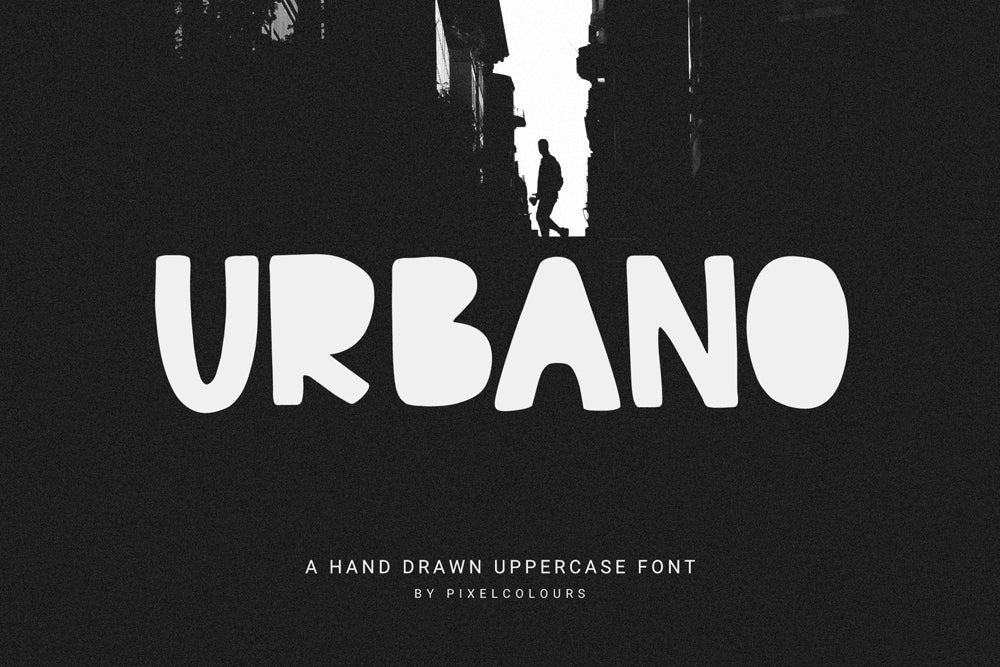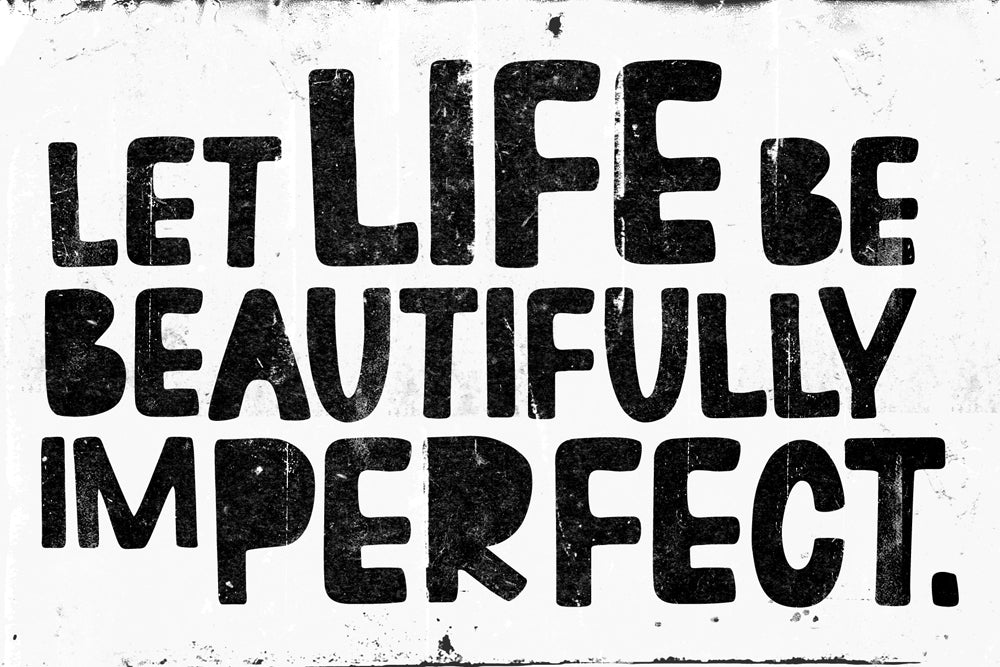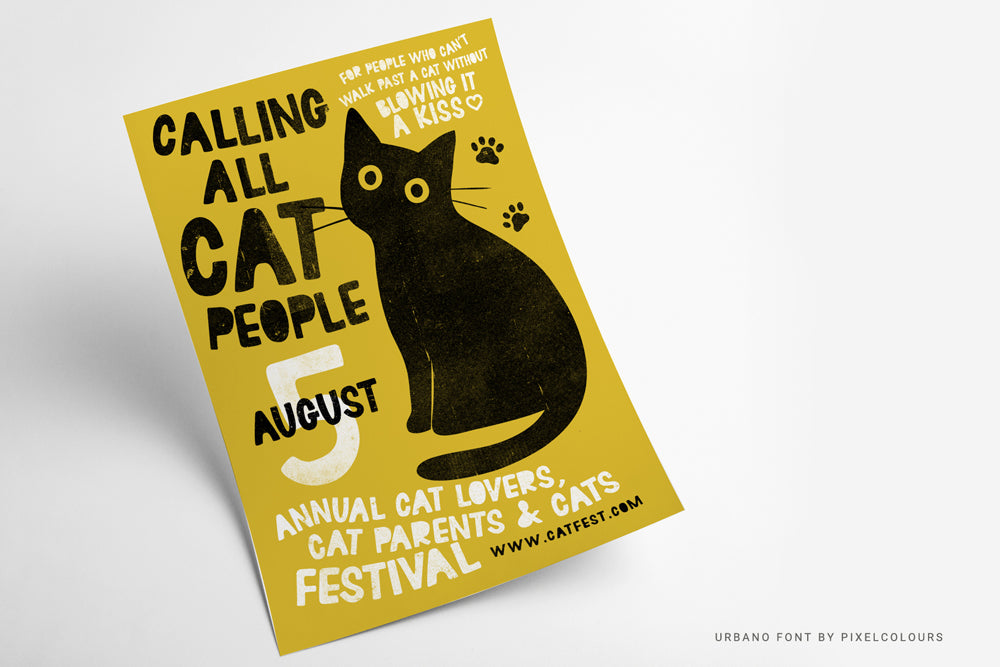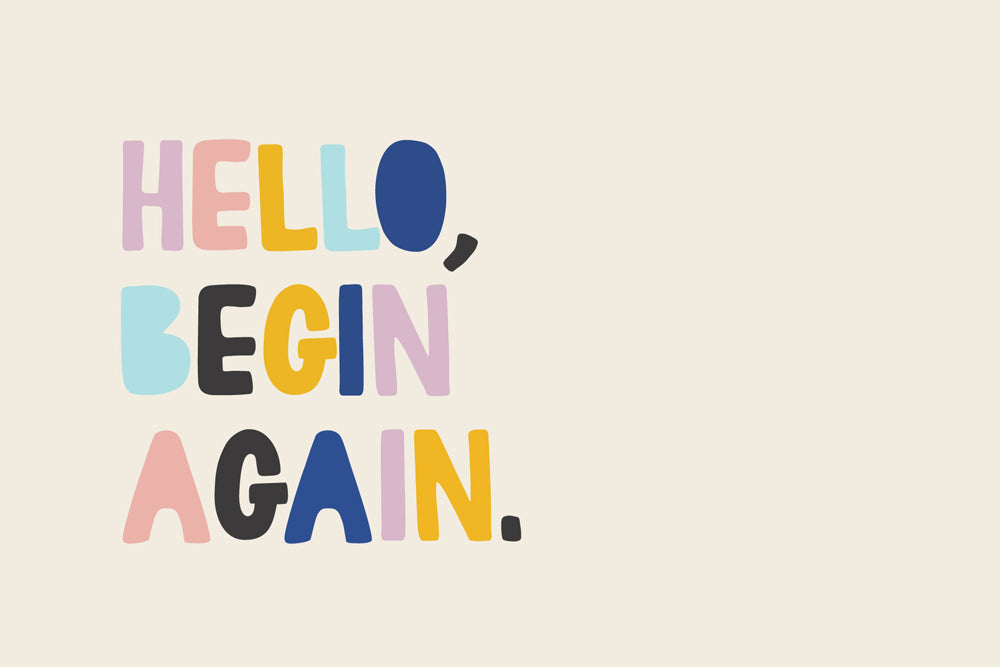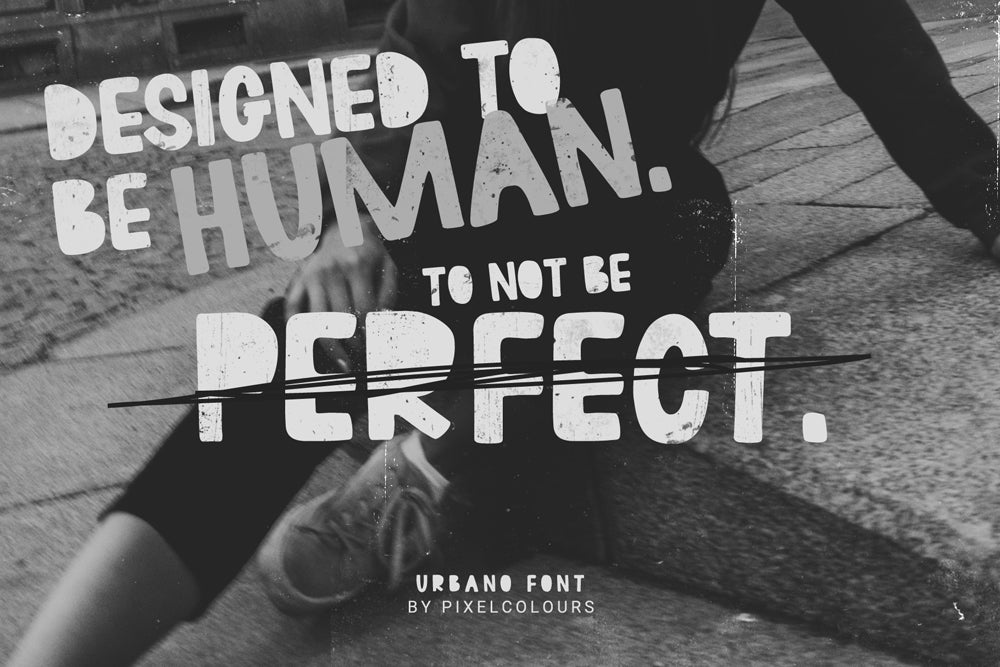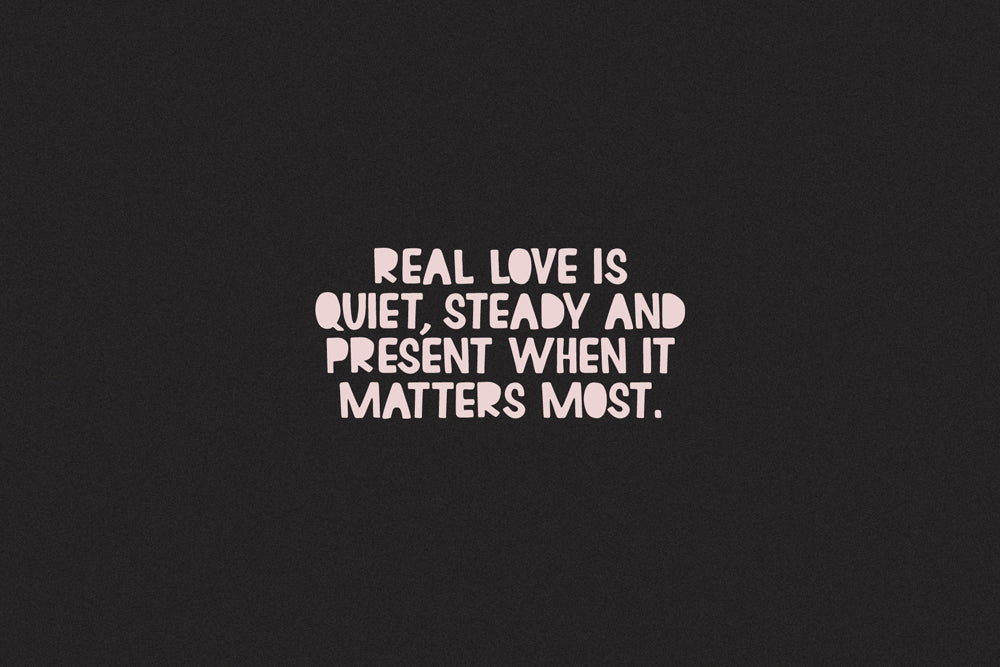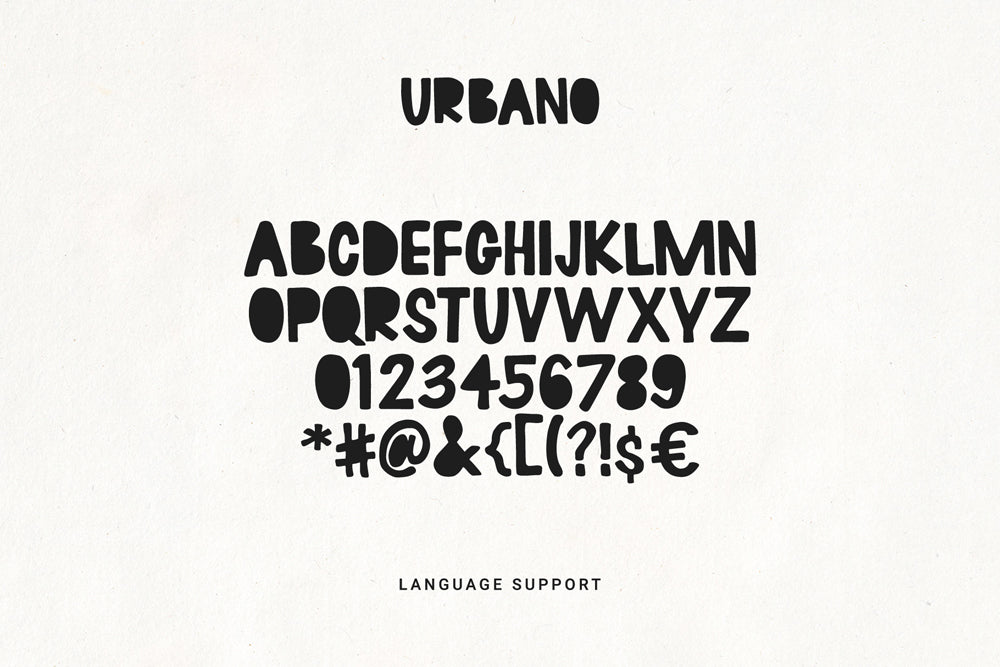
Urbano Hand-Drawn Display Font
Urbano is a bold hand-drawn display font with uppercase characters, designed to make a statement. With its imperfect shapes and handcrafted character, it brings energy and authenticity to every design while remaining clean, legible, and versatile. Urbano is perfect for creative work that should feel personal, handcrafted, and genuinely human.
Although hand-drawn in style, Urbano maintains a strong structure that makes it ideal for modern branding and bold typography. Its expressive uppercase characters create eye-catching compositions with a distinctive handmade feel.
Perfect for
Branding • Logos • Posters • Packaging • Editorial Design • Social Media • Headlines • Album Covers • Advertising • Apparel and Fashion Design • Creative Projects